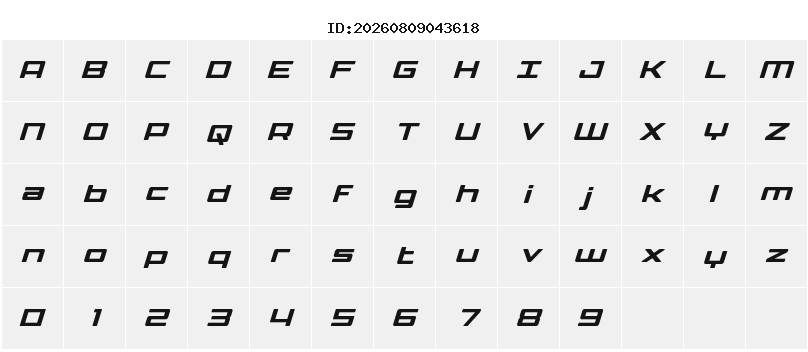
Phoenicia Lower Case Condensed Italic Preview
• Font Name: Phoenicia Lower Case Condensed Italic
• Font Style: Condensed Italic
• Full Font Name: Phoenicia Lower Case Condensed Italic
About Phoenicia Lower Case Condensed Italic.ttf
Phoenicia Lower Case Condensed Italic.ttf is a modern, elegant sans-serif font designed for ultimate readability and visual harmony. Perfect for branding, headlines, web design, and print materials.